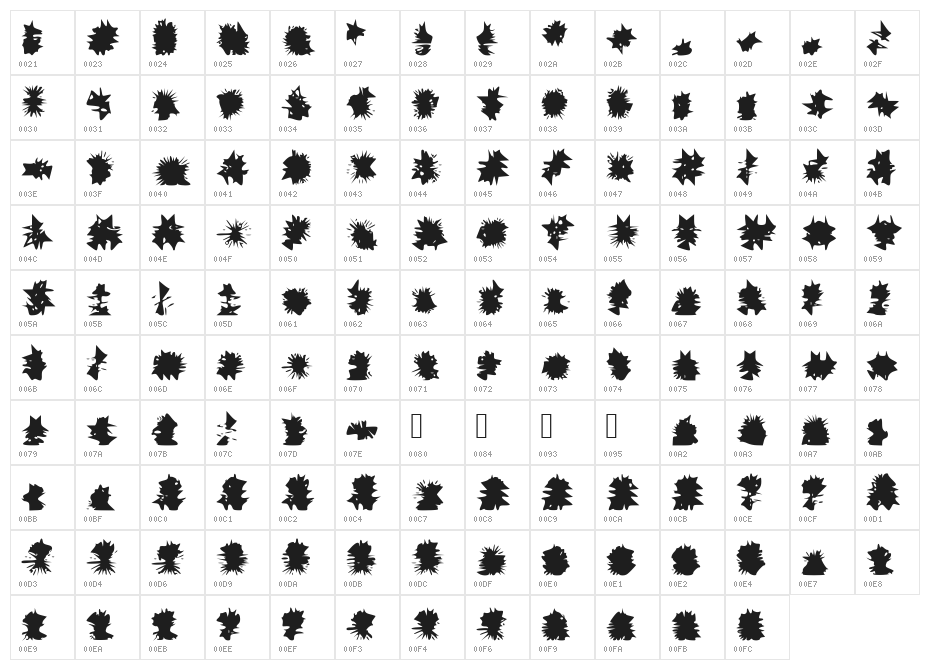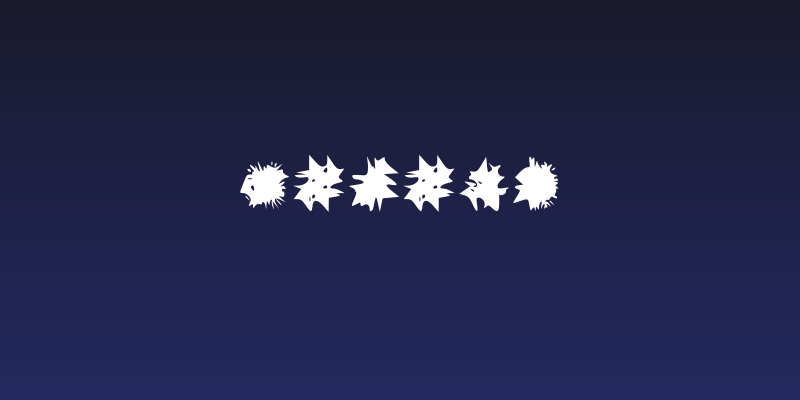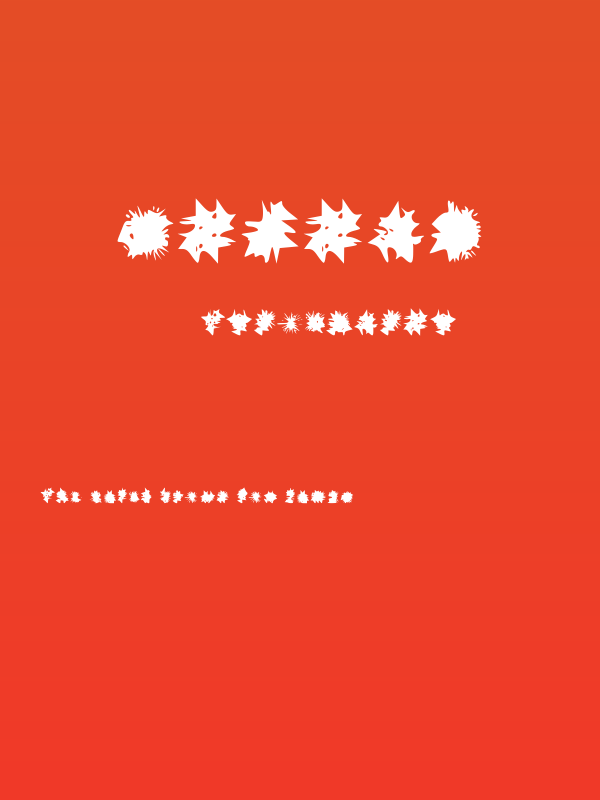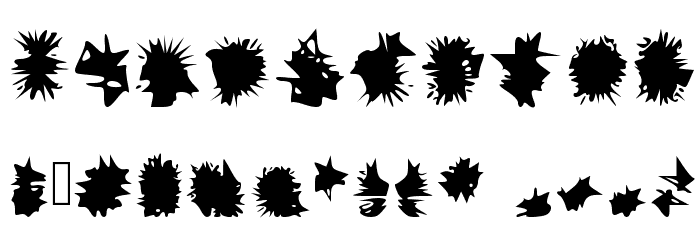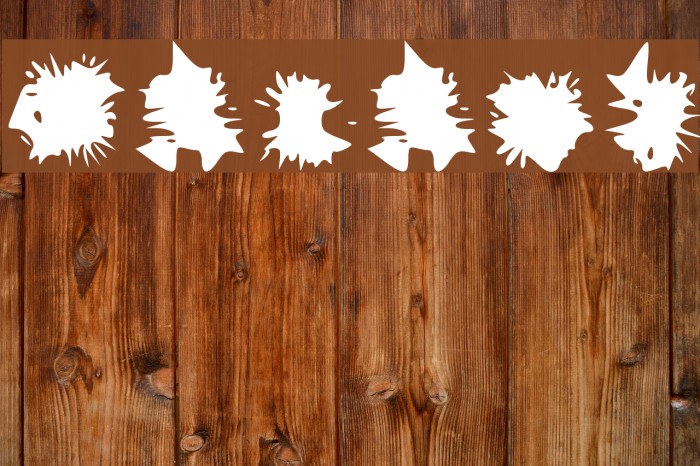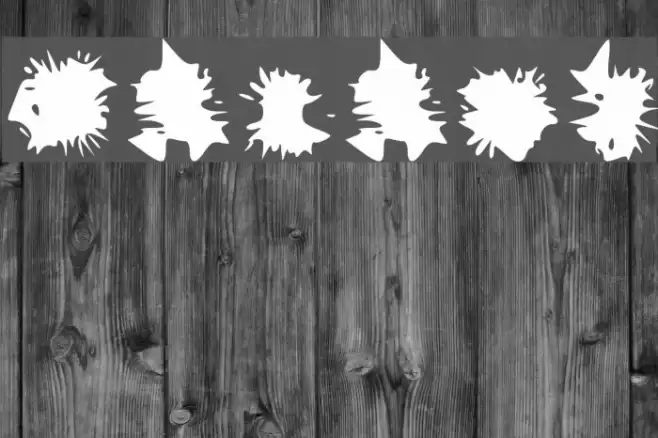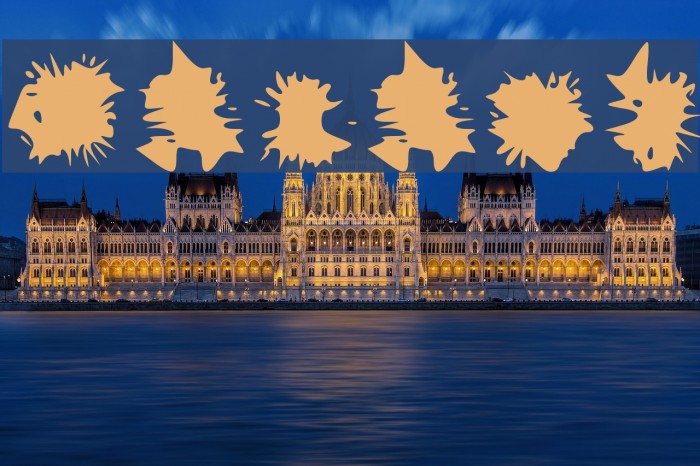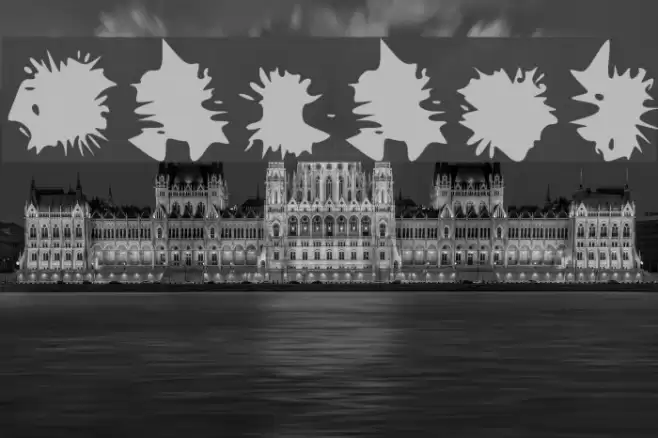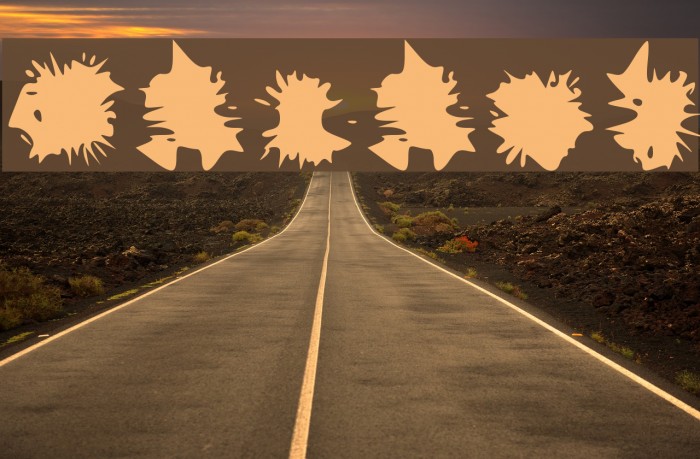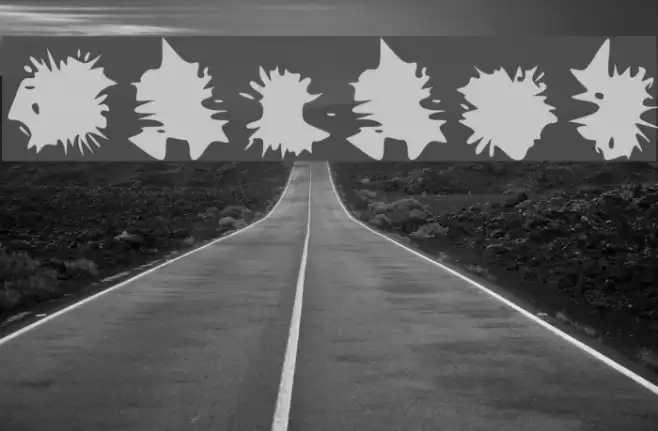
Shehab Font
| Cas d'utilisation | Logos, Headlines |
| Projets proposés | Ideal for album covers, poster designs, or any project requiring a bold, artistic statement. |